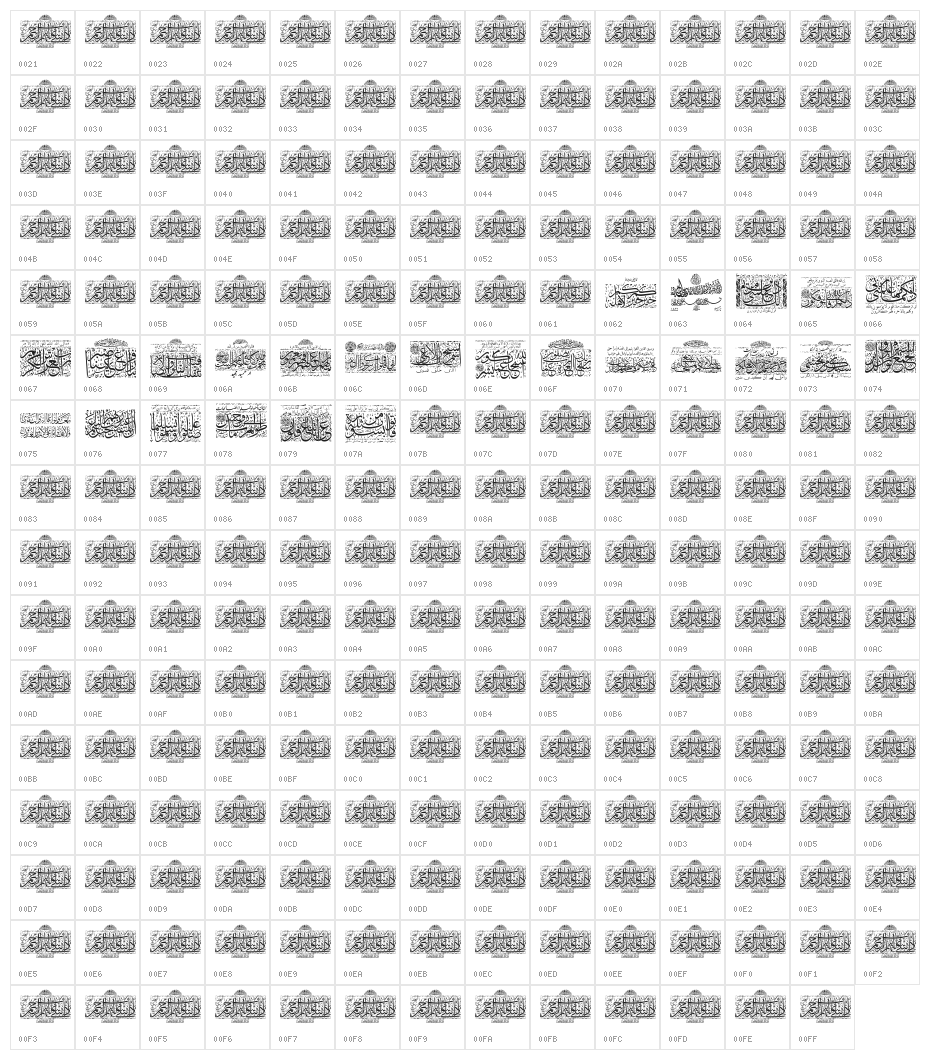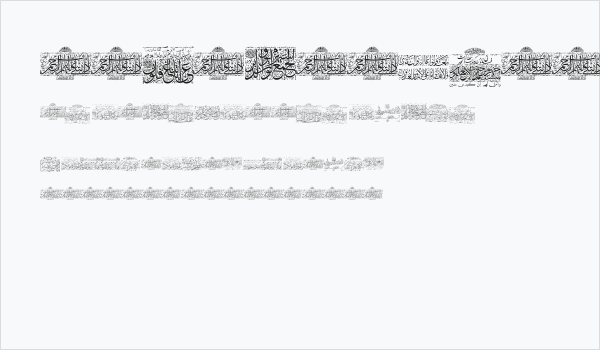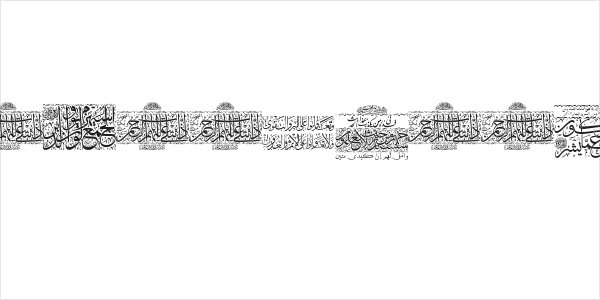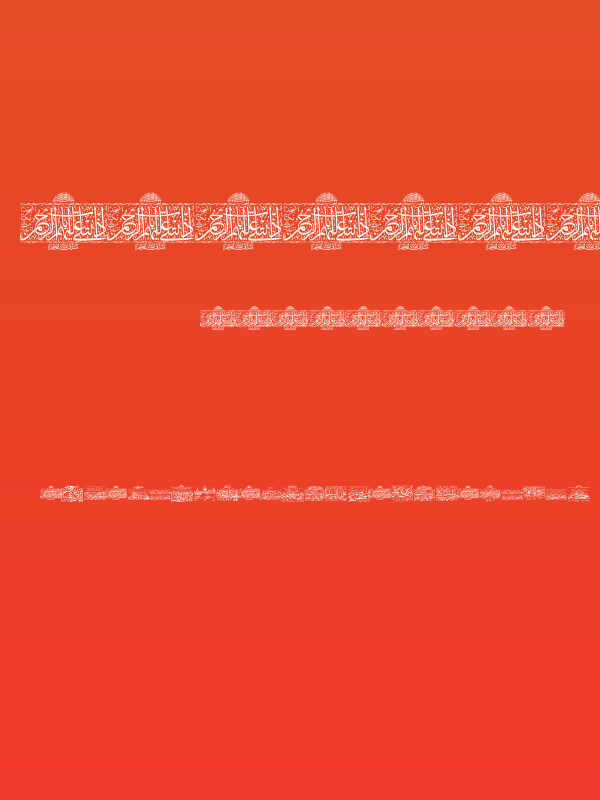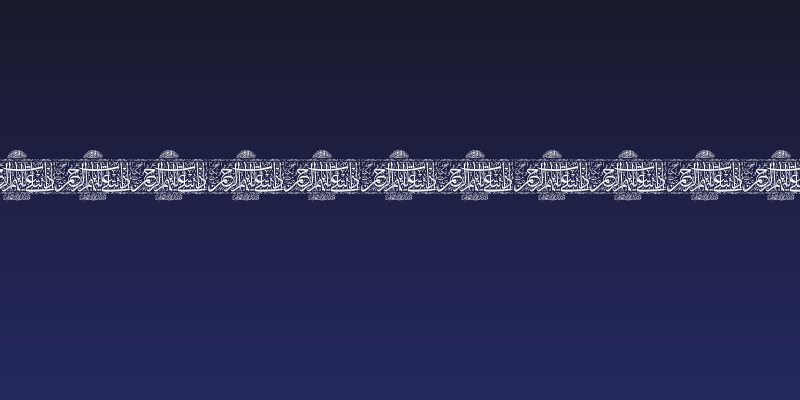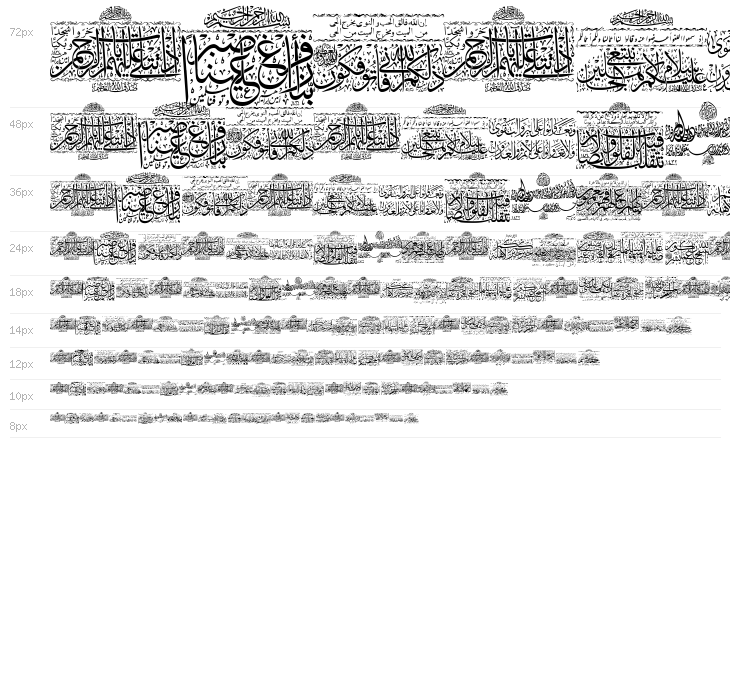
Aayat Quraan 25 Font
Aayat Quraan 25 Description
Highly decorative Arabic script with intricate detailing and ornamental borders, featuring complex ligatures and flourishes typical of traditional calligraphy used in religious or ceremonial contexts.
| Overall Style | Decorative, Traditional, Religious |
| Use Case | Religious texts, ceremonial headings, ornamental borders. |
| Proposed Projects | Religious manuscripts, ceremonial documents, decorative art, cultural posters. |